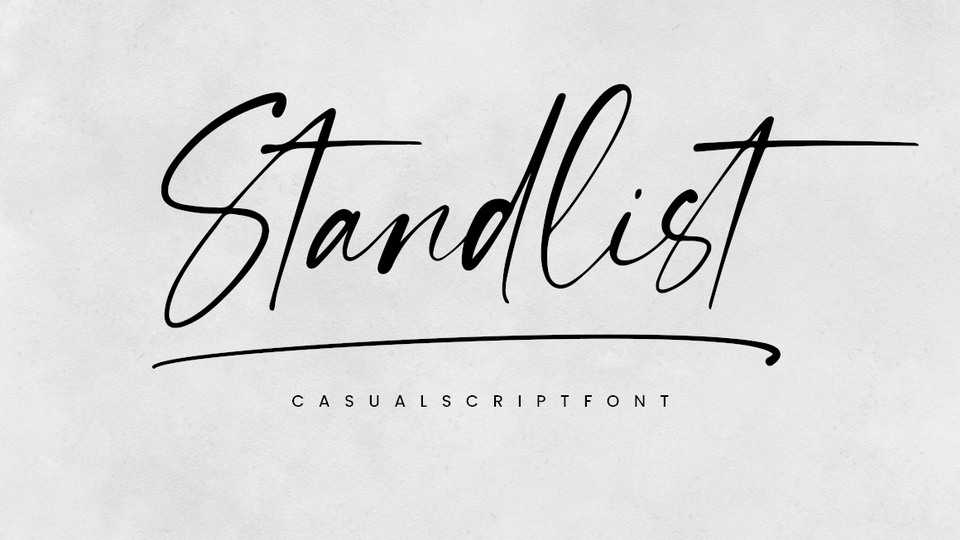
Download Standlist font, a stylish signature script typeface. Standlist has a clean, thin and smooth vibe and it will be a hit for any design that you want to add it to.
Designer: RasdiType